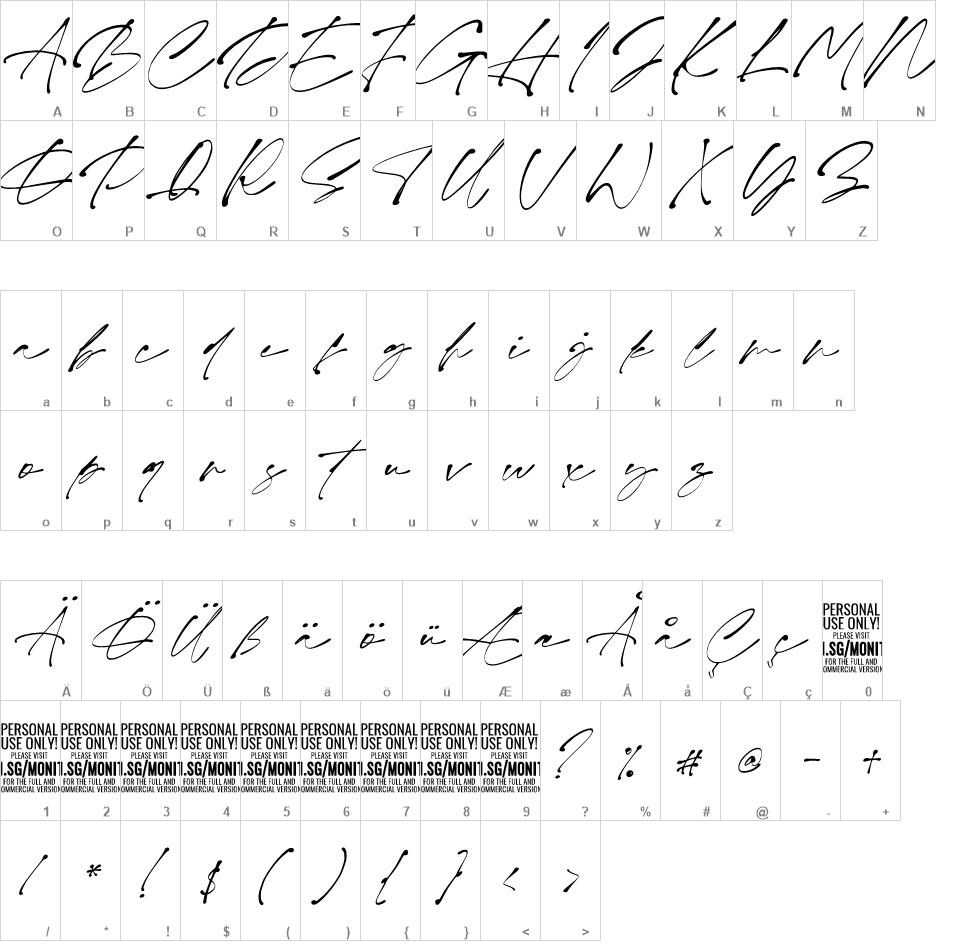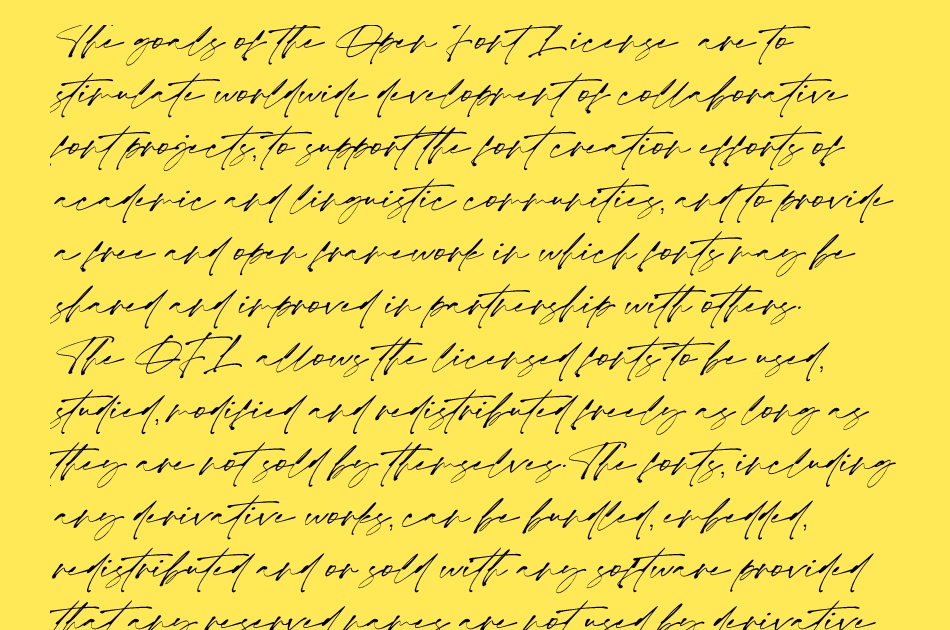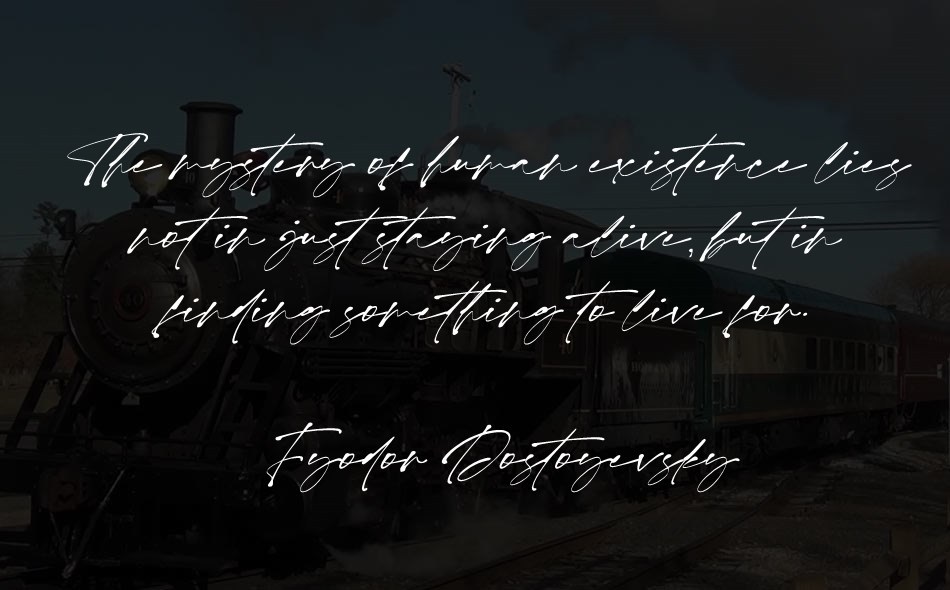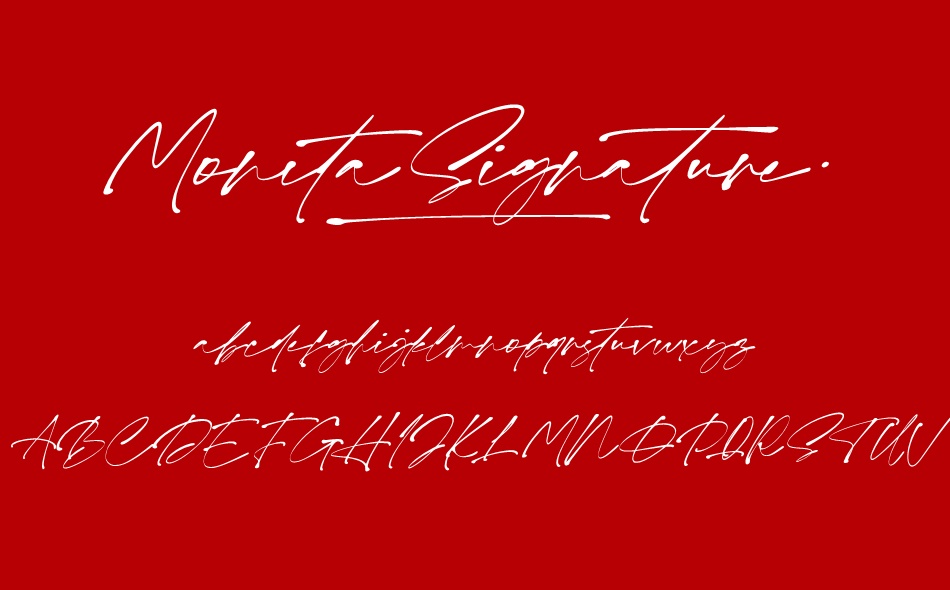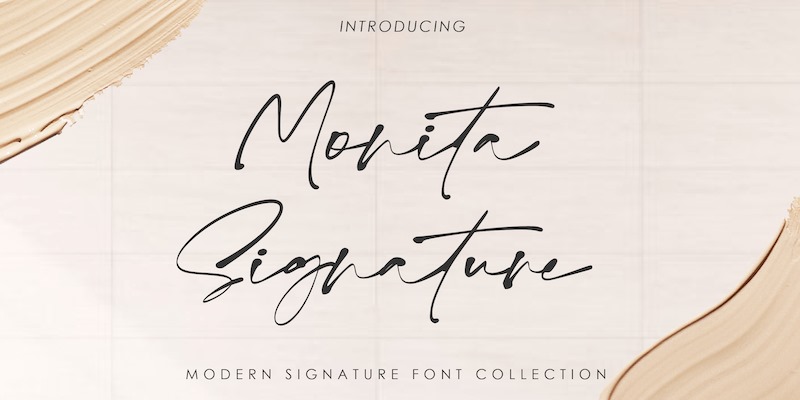
Monita Signature font
Monita Signature is a inky script typeface.
Wild and untamed, this calligraphic lettering brings life and personality to any graphic project.
The font is built with advanced OpenType functionality and has a guaranteed top-notch quality, containing stylistic and contextual alternates, ligatures and more features; all to give you full control and customizability. It has extensive lingual support, covering all Latin-based languages, from North Europe to South Africa, from America to South-East Asia. It contains all characters and symbols you'll ever need, including all punctuation and numbers.